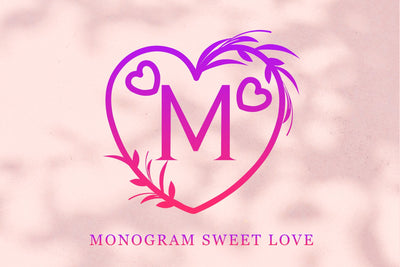
Monogram Sweet Love
Monogram Sweet Love is a beautiful and charming decorative font. Add this romantic and lovely looking font to each of your love letters, wedding invitations or favorite design ideas, and you will be astounded by the outcome